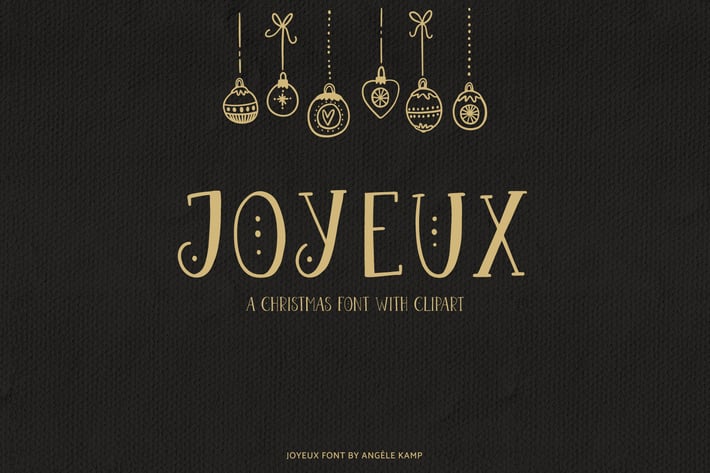
Joyeux Christmas font & clipart
Joyeux is a font family of an all caps font and a dingbat font with 52 cute clipart illustrations which will make crafting so much fun.